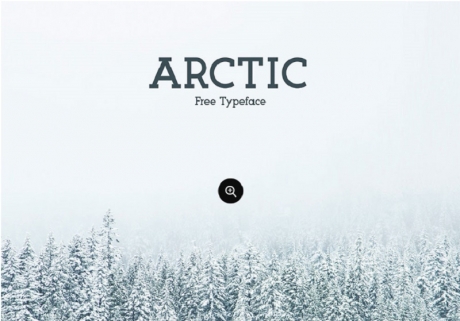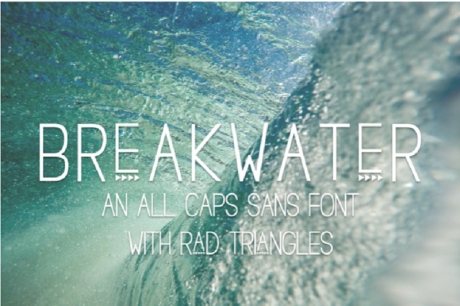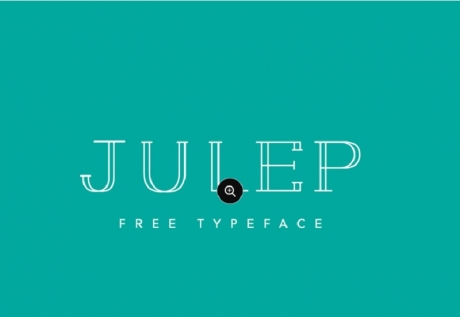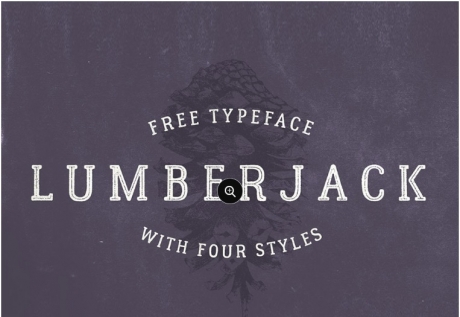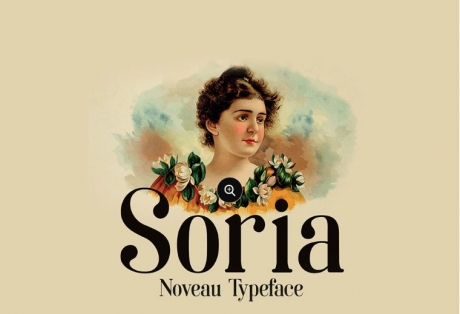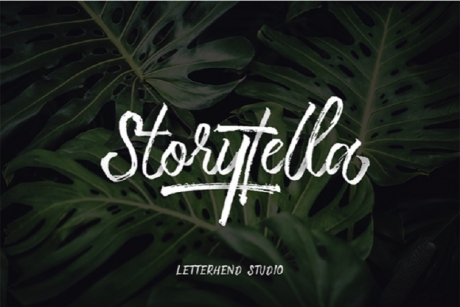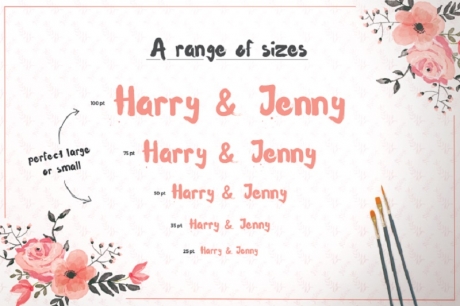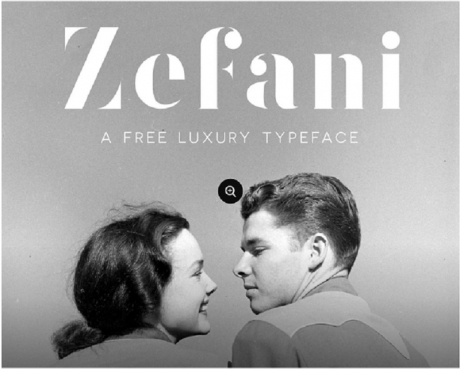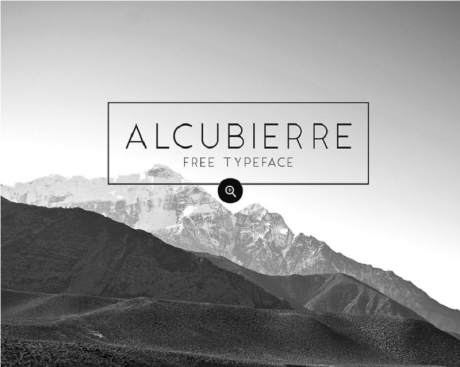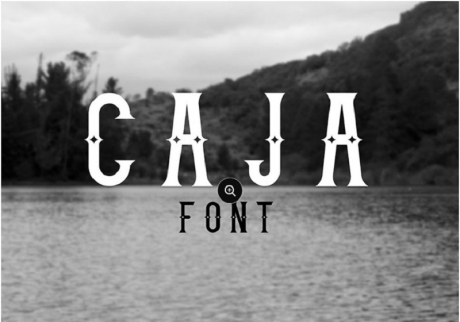
Creating content in different fonts is a lot of fun; we’ve all written a piece of text on a document, slide, or image and then used various fonts on it to see how they look. Fonts give an instant appeal to any text, making it more eye-catching and aesthetically pleasing. The best part is that there are a lot of fonts available out there, and many of them are free! This means plenty of options in cursive, artistic, straight, decorative, funny, beautiful, and unique patterns in which you can write your content.
In this article, we are listing out some of the best free fonts that you really don’t want to miss. Whether you are making banners, graphics, emails, or any other marketing collateral, these awesome fonts will give you plenty of room to get creative and be unique. Check out these awesome fonts, and download the ones you like!
The Best Free Fonts To Have!
Alcubierre – The Graceful Free Typeface Font
If you want a font that’s straight yet fluid, perfectly balanced and thoroughly subtle, the Alcubierre is the one for you. This free typeface font looks downright professional and makes a statement by underplaying. It is great for simplistic graphics like posters, social media posts, and emails.
Caja – The Free Vintage Decorative Font
If vintage or decorative is what you want, then Caja is the perfect free font to have. The diamond design in every letter gives it a very medieval look. This is an all-caps font that looks great on activity posters, flyers, or certain social media graphics. Because of its bold look, Caja should be used sparingly.
Sandy – Stunning Free Calligraphic Font
A twirly and curly font looks very pretty when paired with delicate graphics and designs. Sandy is one such free calligraphic font that adds grace and elegance to any text. This font doesn’t go overboard with the decorative aspect, managing to stay just the right amount of curly and making every text look simply stunning.
Soria – The Free Noveau Typeface Font
Soria is a font that looks straight out of an ancient book or scroll of parchment. This font is very vintage, and yet very classy and graceful. It has an eye-catching design that works great for posters of plays, social media posts, and the like. Soria has an aura of mystery, wonder, and sophistication.
Waterlily – Beautiful Free Typeface Font
Waterlily is a very beautiful free typeface font that looks great on graphics such as posters, stories, or maybe even movie credits. The typeface comes with 80+ hand drawn images as well. Waterlily is a fun font that combines sophistication with a hint of ‘lovely’.
Julep – The Free Parallel Typeface Font
The highlight of Julep is that it makes an impact using thin lines and tall lettering. This font is perfect for slideshow titles, posters, branding, social media posts, and even funky yet understated t-shirt designs. With a chalk-hand drawn pattern, Julep takes one of the spots in the must-have fonts list.
Bernier – Free Set of Vintage Typefaces
Bernier is a set of 3 vintage typefaces that give the perfect retro, old school to your text. Bernier fonts are perfect for logos, headings, posters, and banners. This font comes in a regular, distressed, and faded styles and is only in uppercase. If you want to give an old school twist to your designs, then Bernier is a great font.
Exodus – The Versatile Free Luxury Display Typeface
Exodus is stunning; there are no two ways about that. This is probably one of the most versatile free typeface fonts out there with 6 different variations in the font design. Exodus is perfect for just about everything – posters, flyers, brochures, social media posts, graphics, book covers, t-shirt designs, and anything else that you can think of.
Selima – Perfectly Imperfect Free Brush Fonts
Selima is a collection of free brush fonts that are beautifully wonky and twirly. The highlight of this font is the irregular shapes and lines. Selima fonts are perfect for social media posts, story covers, brochures and flyers, and even t-shirt designs.
Zefani – The Popular Free Luxury Typeface Font
Zefani is the font that you often find on magazine covers or movie posters. The big and bold font features incomplete lines in the lettering, which adds an artistic flair to the text. Zefani is great for poster heading, social media posts, and even book covers.
Dekade – Another Beautiful Brush and Swash Font
Dekade is a set of very beautiful and balanced swash and brush fonts. It looks great on brochures, posters, flyers, social media posts, t-shirts, invitations, book covers, logos, and so much more. The beauty of fonts like Dekade is the versatility and universality, which means they look great with just about anything.
Arctic – The Bold and Professional Free Typeface Font
Arctic is a bold and beautiful typeface font that comes in both cases, with numerals, symbols and accents. This versatile font looks very pronounced and stands proud, making it perfect for all kinds of social media posts, posters, flyers, emails, presentations and other graphical text. The slight curves and straight lines make it an appealing and pretty font.
Breakwater – Free Decorative Triangle Sans Font
Breakwater is an all-caps sans font that comes with a unique and utterly stylish triangle design under the letters. This gives the font a very tribal feel. Breakwater is wonderful for posters, covers, hoardings and boards, menu designs, and a lot more. This font will make any graphic look very unique.
Lumberjack – The Vintage, Bold Free Typeface Font
Lumberjack is a vintage-like font that looks brushed but is actually quite bold and pronounced. It comes in four unique styles that can be used to create all kinds of designs like adverts, posters, campaigns, email graphics, social media posts, book covers, and a lot more. It is a great font that will definitely catch the eye of your audiences.
Graffismo – The Bubbly Free Display Font
Graffismo is a very fun looking, curly and bubble-like display font. It goes great on funky posters, pop covers, and a lot more. This font is meant to be a heading and subheading, is translation friendly, small and large caps, and looks insanely fun and vibrant.
Rainwood – The Wonky Free Typeface Font
Rainwood is a typeface font that has a hand-painted look. The painting style typeface gives a handmade feel to the font. Rainwood is great for t-shirt printing, book covers, flyers and brochures, and even social media posts. It can be used to give a spooky feel, party feel, or even just a ‘handmade’ feel.
Storytella – Free Handwritten Brush Font
Storytella is a very pretty and graceful handwritten brush font. It looks like someone dipped a brush in watercolours and started painting out a story. Storytella is great for social media posts and inforgraphics, clothes designs, posters or cover pages, and a lot more. The loops and turns give this font an perfect imbalance.